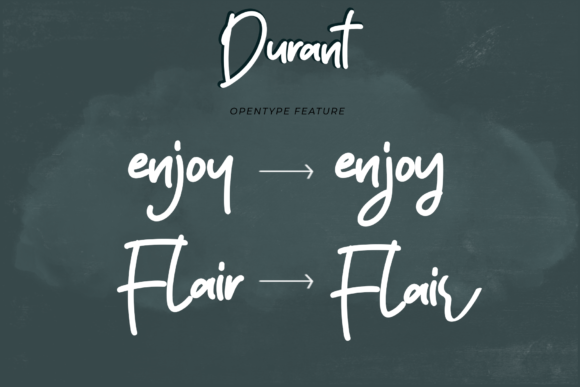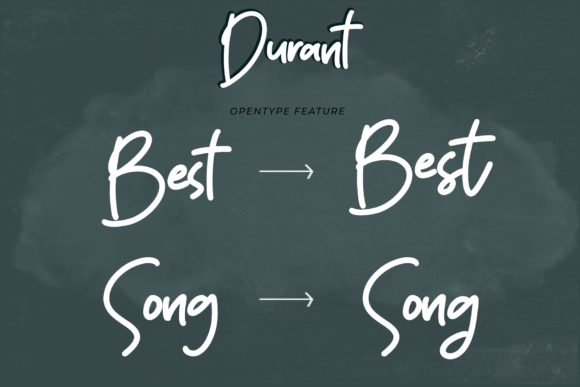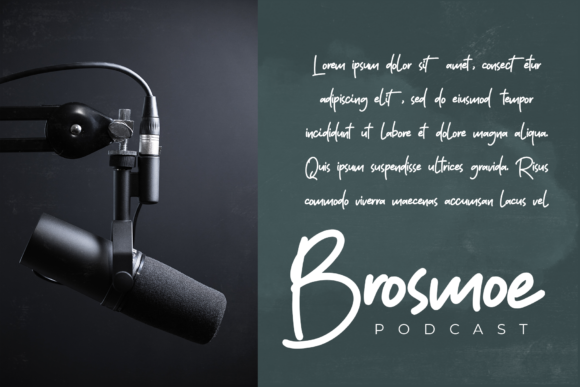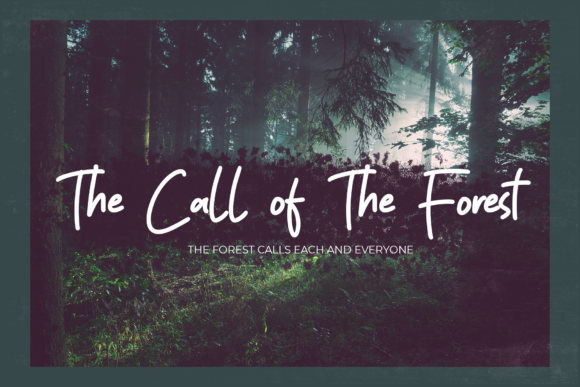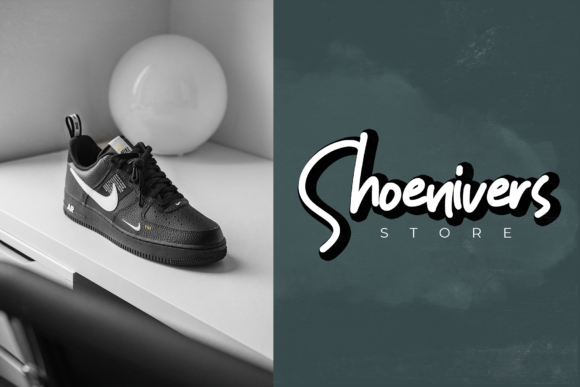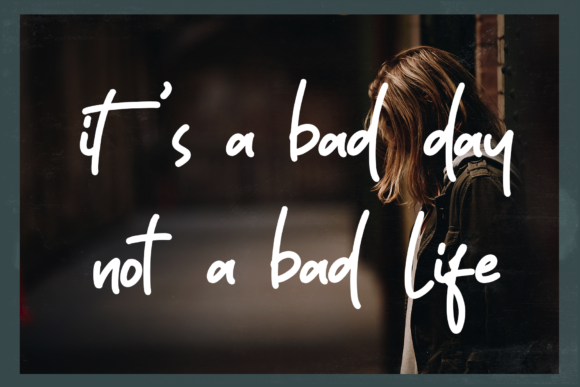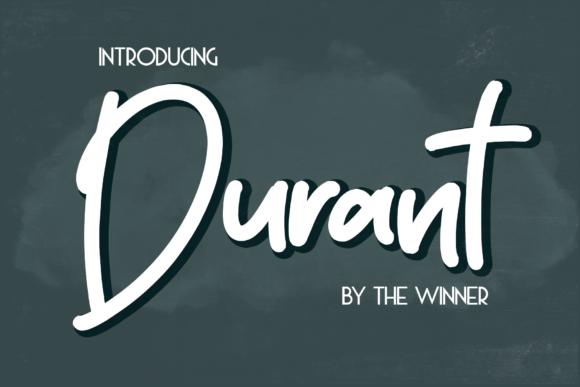
Discover the Charm of Durant Font: A Simple, Clean, and Adaptable Handwritten Font
Are you tired of using the same old fonts for your creative projects? Look no further than the Durant Font, a simple, clean, and adaptable handwritten font that’s perfect for adding a relaxed touch to your designs. In this article, we’ll dive into the world of Durant Font and explore its features, benefits, and uses.
What is Durant Font?
Durant Font is a modern, handwritten font that’s designed to bring a casual and informal vibe to your creations. Its simple and clean lines make it easy to read and versatile enough to be used in a variety of contexts. Whether you’re a designer, crafter, or DIY enthusiast, Durant Font is a great choice for anyone looking to add a personal touch to their work.
Key Features of Durant Font
- Simple and Clean Design: Durant Font features a straightforward and uncomplicated design that’s easy on the eyes.
- Adaptable: This font is highly versatile and can be used in a range of applications, from digital media to print materials.
- Handwritten Style: Durant Font has a warm, handwritten feel that’s perfect for adding a personal touch to your creations.
- Informal and Casual: This font is ideal for projects that require a relaxed and casual vibe.
Benefits of Using Durant Font
So, why choose Durant Font for your next project? Here are just a few benefits of using this amazing font:
- Easily Readable: Durant Font is designed to be easy to read, making it perfect for body text, headings, and titles.
- Unique and Creative: This font adds a touch of personality to your work, setting it apart from more traditional fonts.
Uses of Durant Font
Durant Font is a versatile font that can be used in a variety of contexts, including:
- Digital Media: Use Durant Font in your social media graphics, blog posts, and website designs.
- Print Materials: This font is perfect for brochures, flyers, posters, and other print materials.
- Crafting and DIY Projects: Add a personal touch to your crafting and DIY projects, such as handmade cards, gift tags, and labels.
- Branding and Marketing: Use Durant Font to create unique and memorable brand identities.
Tips for Using Durant Font
Here are a few tips for getting the most out of Durant Font:
- Pair it with Other Fonts: Combine Durant Font with other fonts to create interesting and dynamic designs.
- Experiment with Colors: Try out different colors and color combinations to add depth and interest to your designs.
- Use it for Headings and Titles: Durant Font is perfect for headings and titles, adding a touch of personality to your work.
In conclusion, Durant Font is a simple, clean, and adaptable handwritten font that’s perfect for adding a relaxed touch to your designs. With its informal style and casual vibe, this font is a great choice for designers, crafters, and DIY enthusiasts alike. Whether you’re looking to create professional-looking designs or add a personal touch to your crafting projects, Durant Font is a versatile and easy-to-use font that’s sure to become a go-to choice.